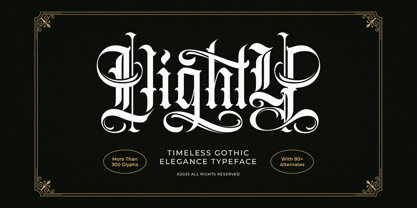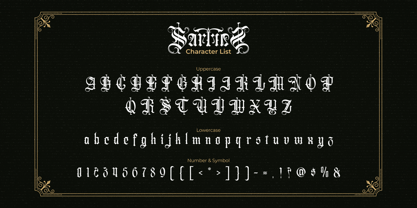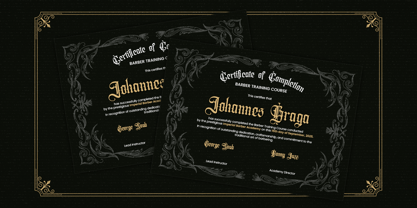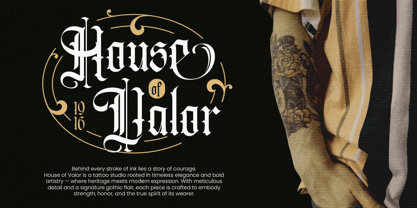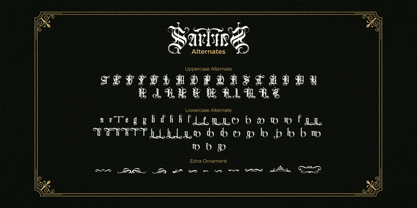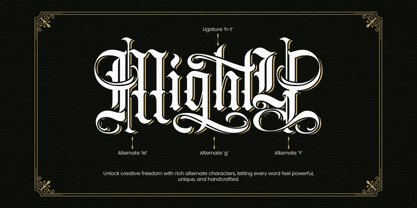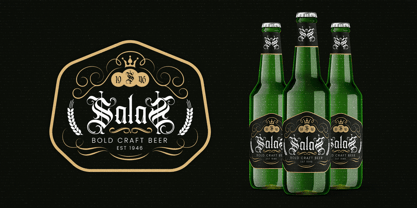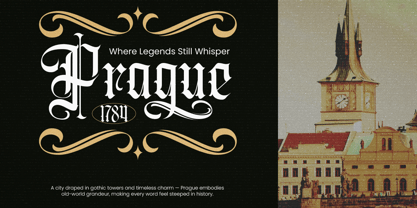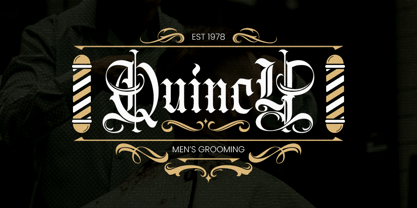
Vighty
by Sronstudio
The Vighty Font Family was designed by Muhamad Yusron Billah and published by Sronstudio. Vighty contains 1 styles. More about this family
Vighty is an elegant blackletter font that merges gothic tradition with modern sophistication. With its intricate letterforms, sharp edges, and graceful flourishes, this font exudes a sense of power and luxury. Perfect for branding, packaging, tattoos, apparel, and editorial designs, Vighty adds a refined, dramatic, and timeless aesthetic to any project. What’s Included: - Upper & Lowercase - Upper & Lowercase alternates - Numerals & punctuation - PUA encoded for easy access - Multilingual support - Works seamlessly on Mac & Windows Thank you very much 🙂